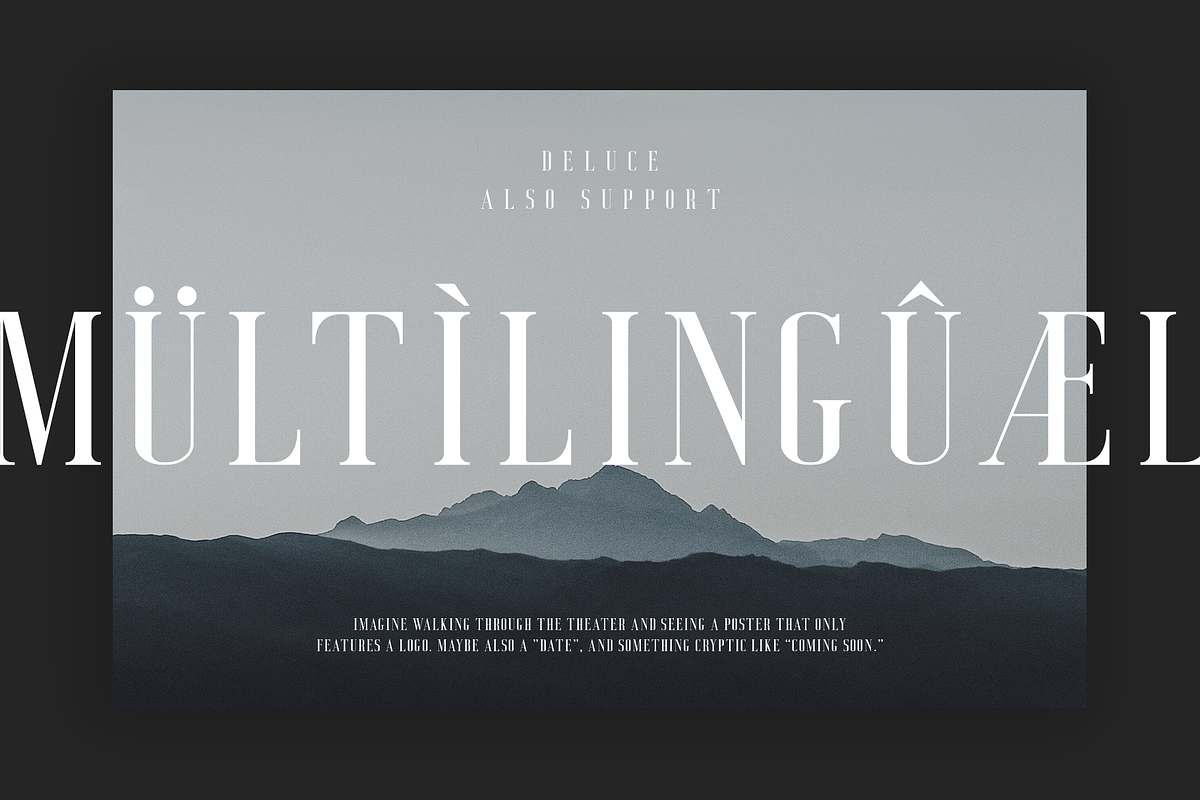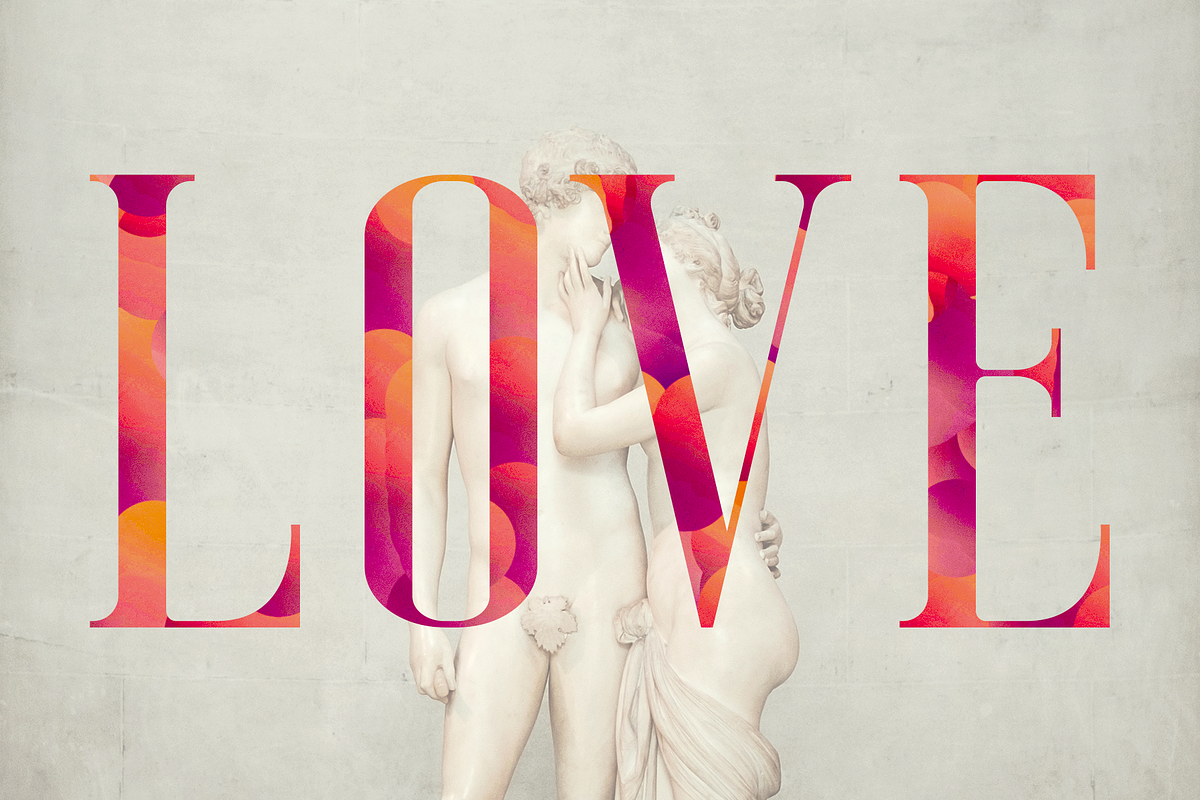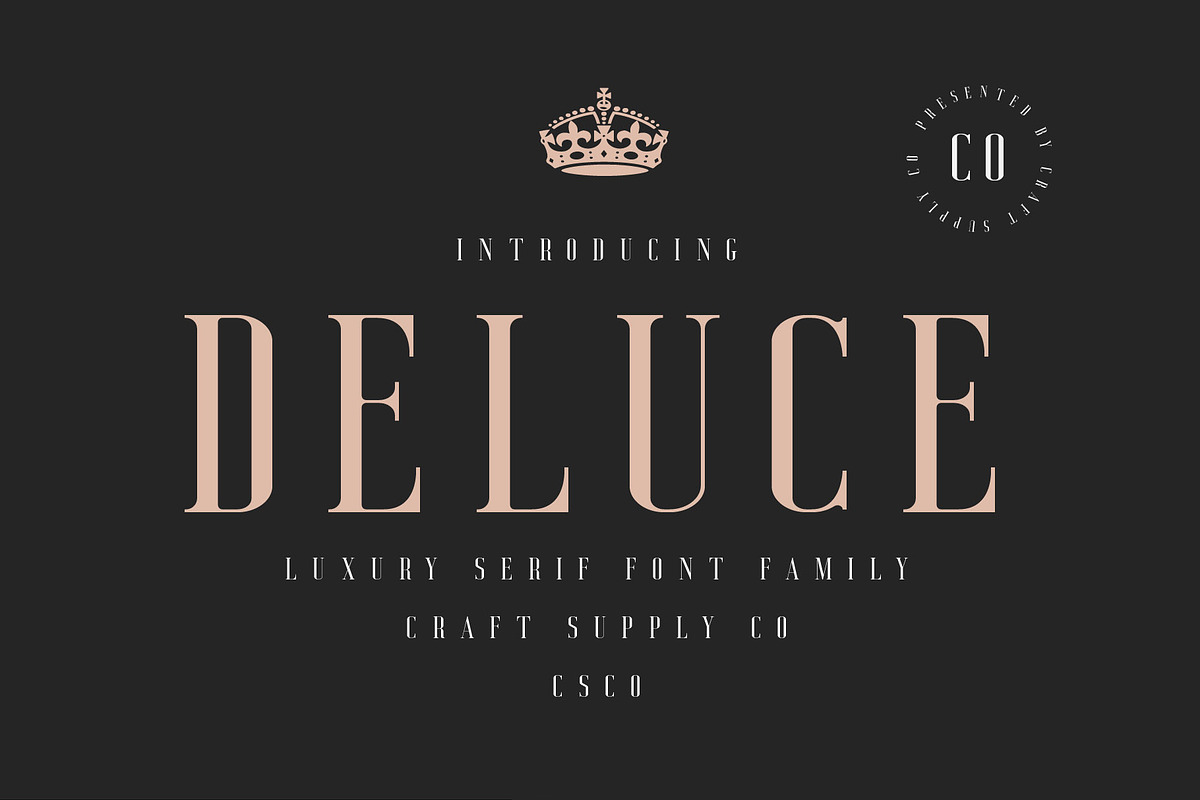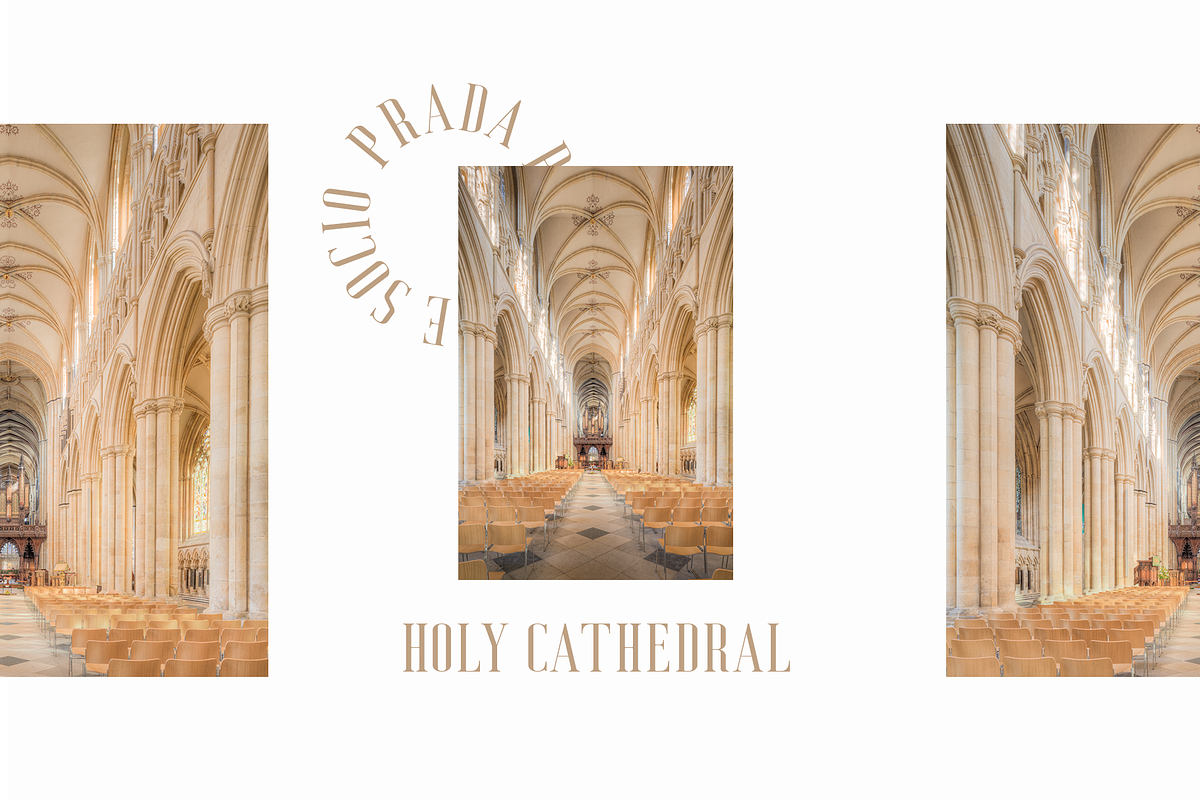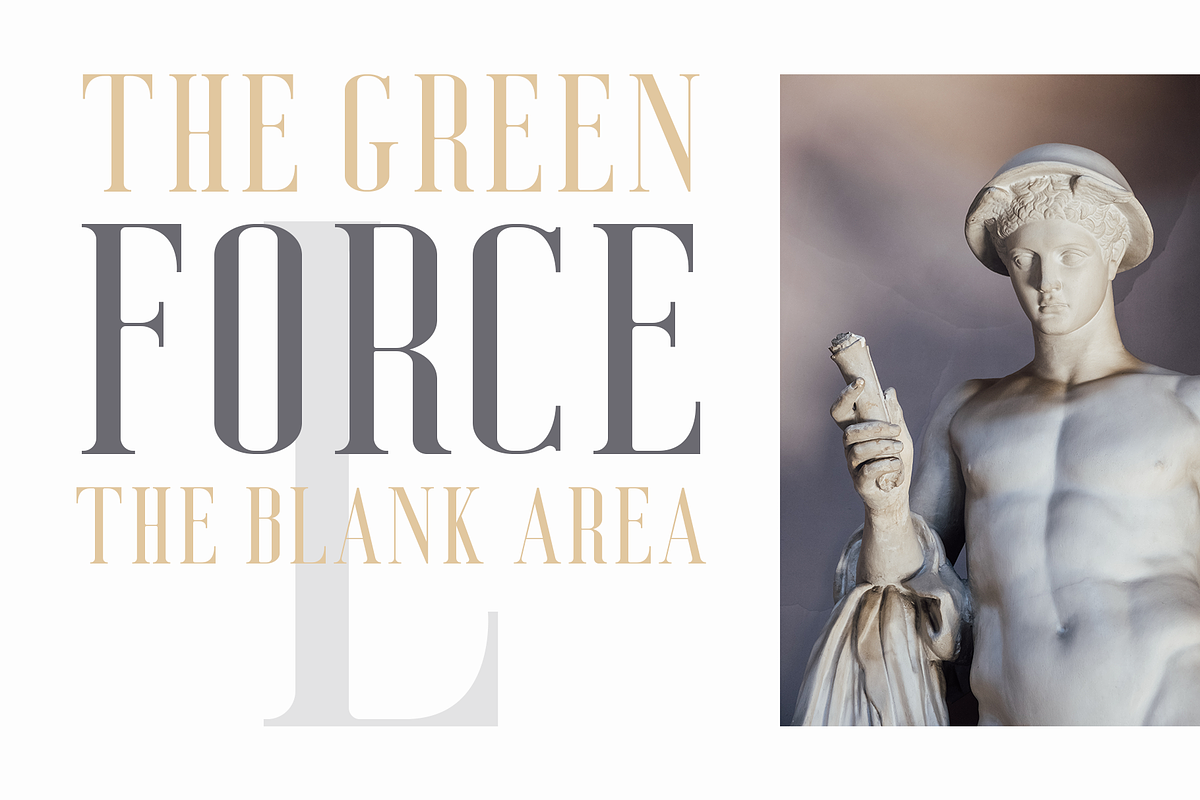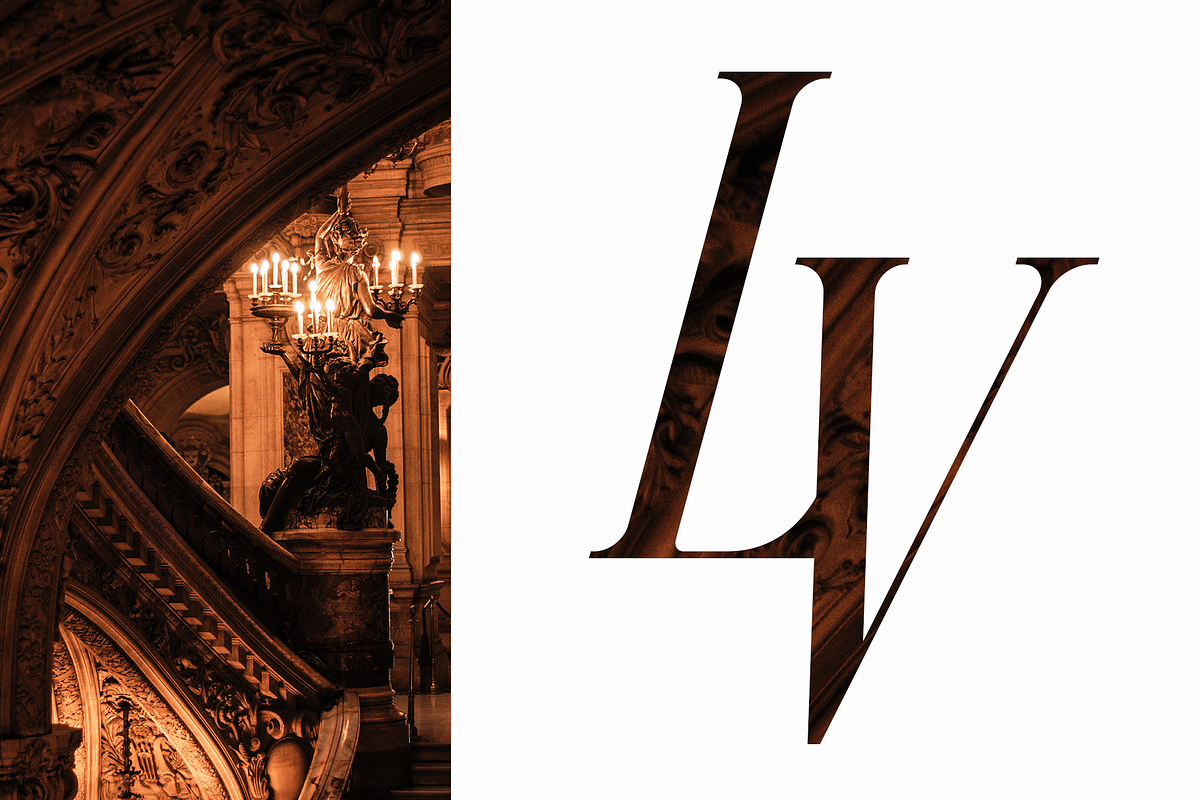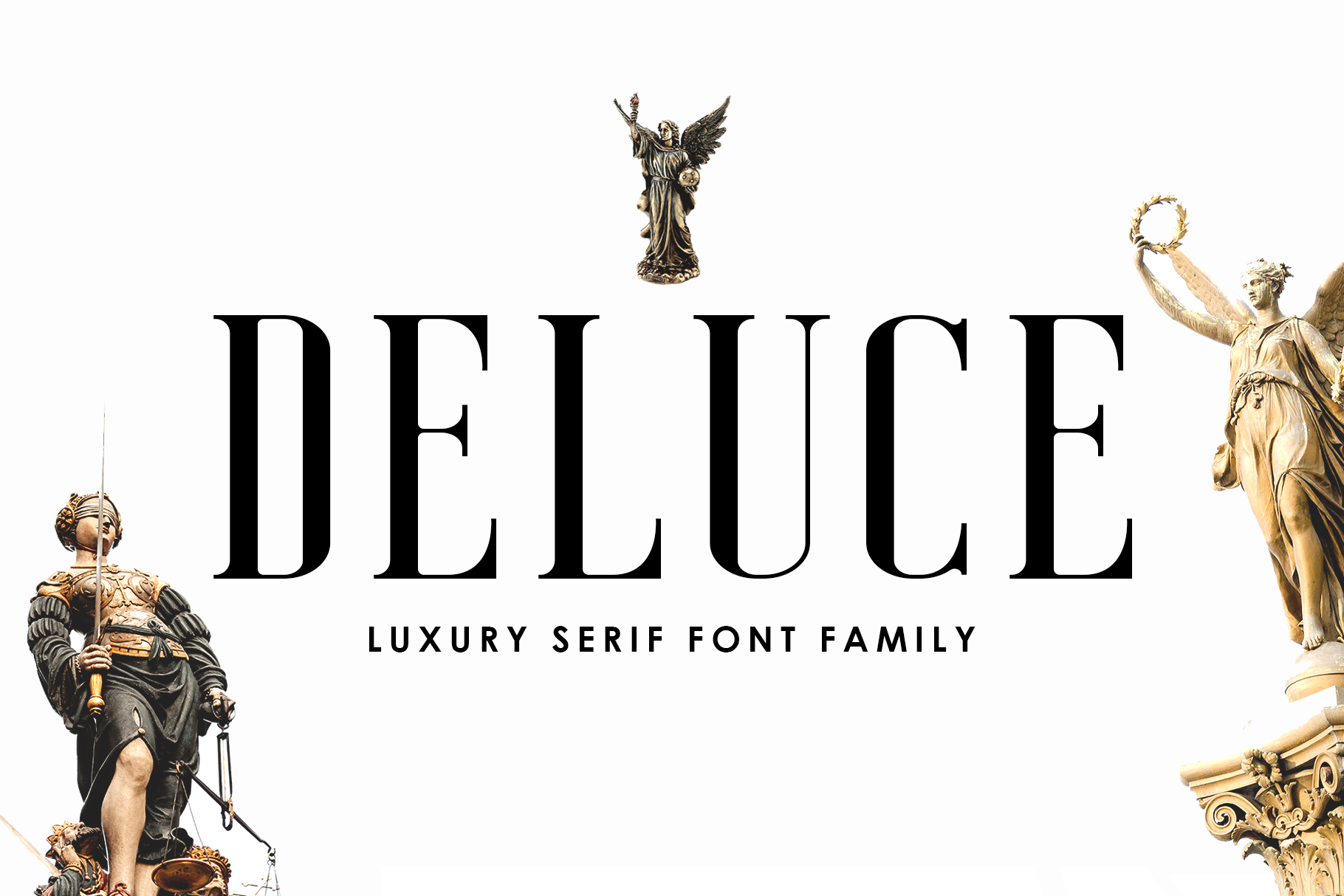
Deluce - Luxury Serif Font
Introducing New Font : Deluce - Luxury Serif Font
Deluce - Luxury Serif Font is a modern serif font family whose design refers us to the style of transitional serifs. The distinctive features of Deluce - Luxury Serif Font are the relatively low contrast of strokes, the slightly squarish shapes of round characters and the emphasized businesslike nature.
Deluce - Luxury Serif Font features an original stylistic set which, when turned on, adds features of typical pointed-pen serifs to some of the lowercase characters. In addition, Deluce - Luxury Serif Font has small capitals for Latin and Cyrillic alphabets, as well as several interesting ligatures.
Deluce - Luxury Serif Font has been crafted from scratch with a structural logic of its own: a fusion of pure geometry and optical balance. By combining a variety of styles Deluce - Luxury Serif Font is suitable for Logo, greeting cards, quotes, posters, branding, name card, stationary, design title, blog header, art quote, typography
Deluce - Luxury Serif Font also suitable for art, modern envelope lettering or book design, happening style like handdrawn design or watercolor design theme, craft design, any DIY project, book title, wedding font, pop vintage design, or any purpose to make our art/design project look pretty and trendy.